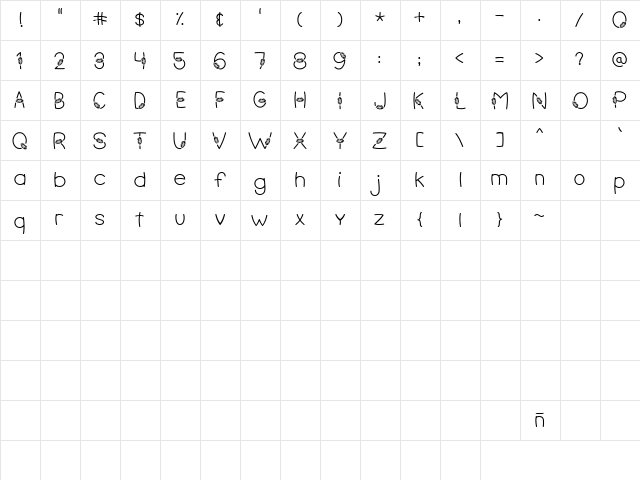
LD Smooch Regular
Design Context for LD Smooch Typeface
LD Smooch is a composed and adaptable typeface that performs quietly and consistently across a wide range of design contexts.